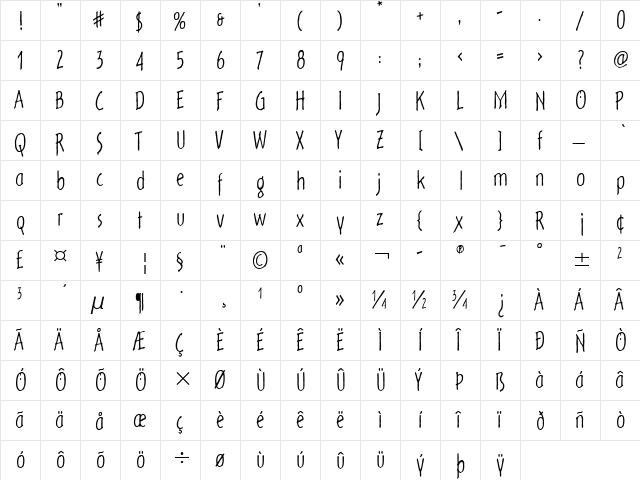
Out of the Fridge ITC Light
Design Context for Out of the Fridge ITC Typeface
Out of the Fridge ITC is a composed and adaptable typeface that performs quietly and consistently across a wide range of design contexts. Its slender proportions lend an understated elegance to any composition.